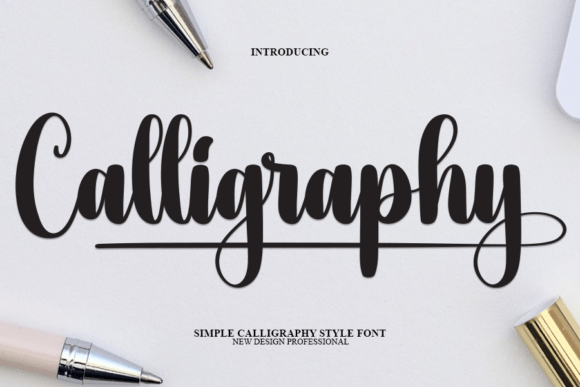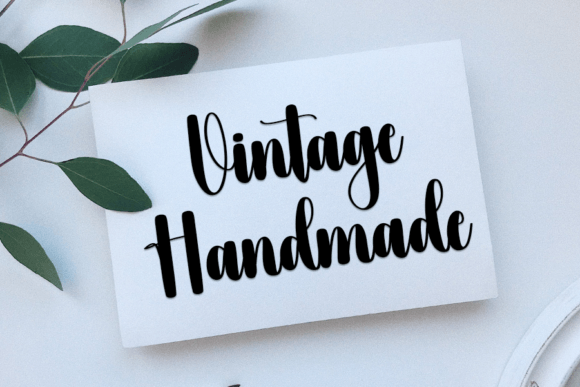
About the Calligraphy Font
Elevate your designs with Calligraphy Font, a font that combines sophistication with readability. Calligraphy is a delicate handwritten font carefully crafted for a cool and unique design. This font can be used to write letters, invitations, food products, titles, and more.
Calligraphy Font Usage Examples